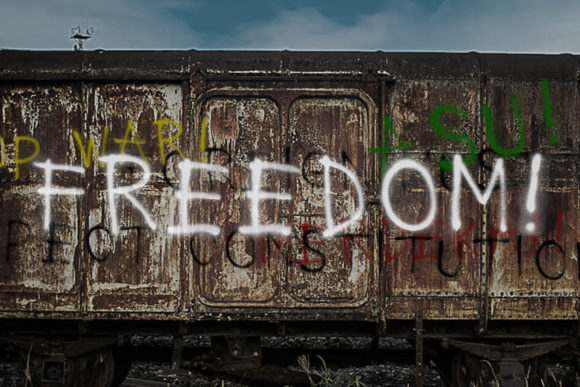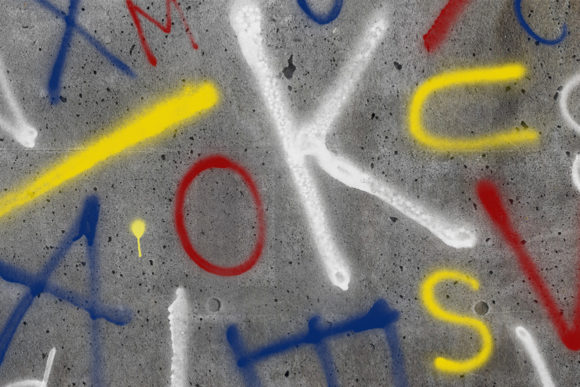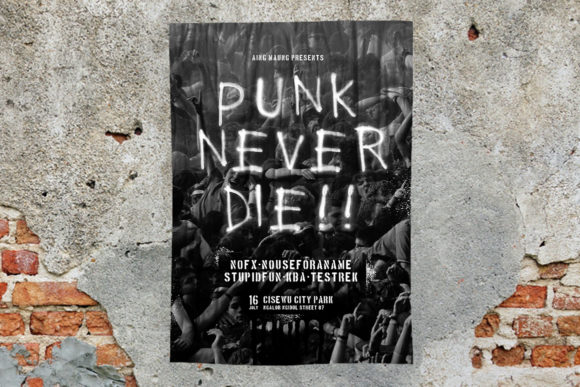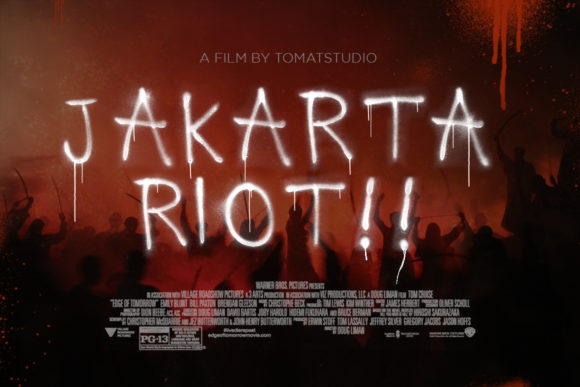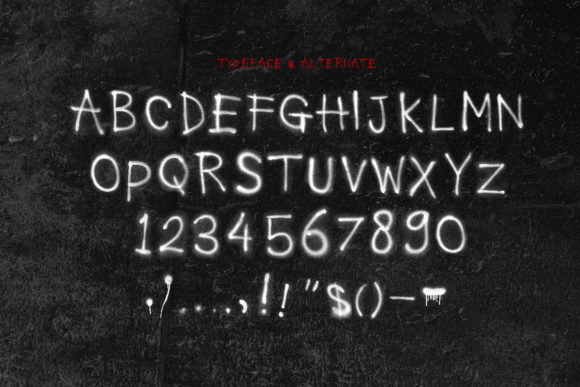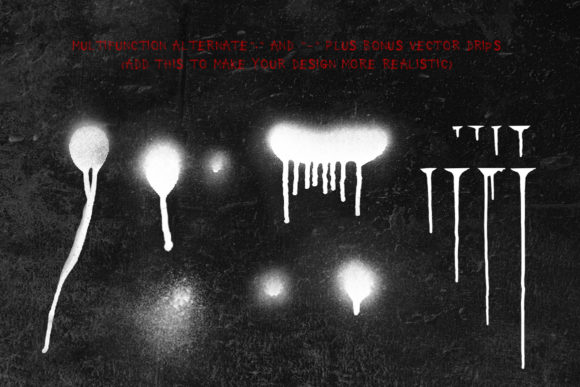
Introduction to Rough Spray Font
Enter the Rough Spray Font, a raw and dirty display font that evokes the rough look of graffitis. This high-quality font is a game-changer for designers looking to add a touch of edginess to their designs. With a transparent background and a free download option, it’s the perfect addition to any creative project.
Whether you’re working on a logo, poster, or social media graphic, the Rough Spray Font is a valuable resource that’s sure to take your designs to the next level.
Key Features of Rough Spray Font
- Rough Spray Font is a high-quality, creative design resource ideal for various projects, including posters, logos, and digital art.
- This free download font features a unique, distressed style with a transparent background, perfect for adding texture and depth to your designs.
- This font is ideal for designers looking for a creative, high-quality design resource that can add a unique touch to their projects.
- The transparent background of Rough Spray Font makes it easy to layer and combine with other design elements, giving you endless possibilities for creative expression.
- Rough Spray Font is a great addition to any design arsenal, offering a fresh and unique look that’s perfect for making your designs stand out.
Honest Review: Rough Spray Font
I recently had the chance to work with the Rough Spray Font, a free download that I found to be a fantastic addition to my design arsenal. This font is perfect for any creative project that requires a unique and edgy touch. With its distressed texture and bold lines, it’s sure to make your design stand out.
- ✨ High-quality design that looks great on any background
- ✨ Transparent background makes it easy to place on any image
One of the things I love about the Rough Spray Font is its versatility. It’s perfect for designing anything from graffiti-style posters to streetwear branding. The font is also highly customizable, making it easy to adjust the size, color, and texture to fit your design needs.
- ⚠️ Limited character set, may not be suitable for extensive text-based projects
- ⚠️ May not work well with very small text sizes
Overall, I’m really impressed with the Rough Spray Font. It’s a high-quality design resource that’s perfect for any creative project. While it may have some limitations, it’s definitely worth checking out if you’re looking for a unique and edgy font to add to your design toolbox.
Rough Spray Font
Rough Spray Font is a versatile design resource ideal for creative projects. This high-quality font features a unique, hand-painted style that can add an extra layer of depth and emotion to your work.
To get the most out of the Rough Spray Font, try pairing it with a transparent background to create a sense of depth and dimensionality. You can also experiment with different font sizes and styles to achieve the desired effect.
The Rough Spray Font is perfect for creative projects that require a unique and eye-catching font. Some common use cases include:
- Print design projects
- Web design projects